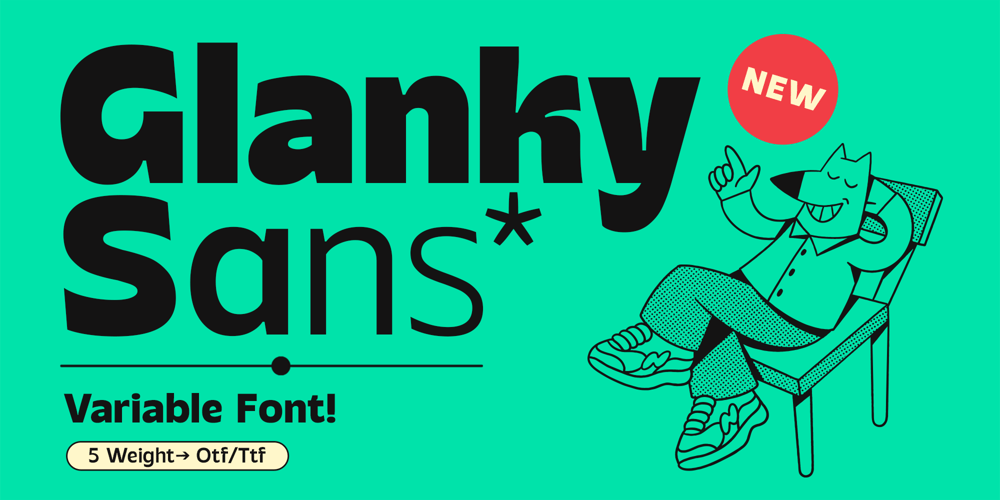
TNSC Glanky Sans Font Family was designed by Bagas Ferdiansah, Septianto Nugroho and published by The Native Saint Club. TNSC Glanky Sans contains 6 styles and family package options. TNSC Glanky Sans – a variable sans serif font that combines a modern touch with versatile flexibility. With five different weights Light, Regular, Medium, Bold, and Black. Also comes with a FREE RETRO MASCOT to create better designs. Perfect for modern design projects, bringing a fresh, cheerful, unique, and stylish touch to any creative endeavor. Transform your design projects with Glanky Sans – which combines flexibility with a modern touch!